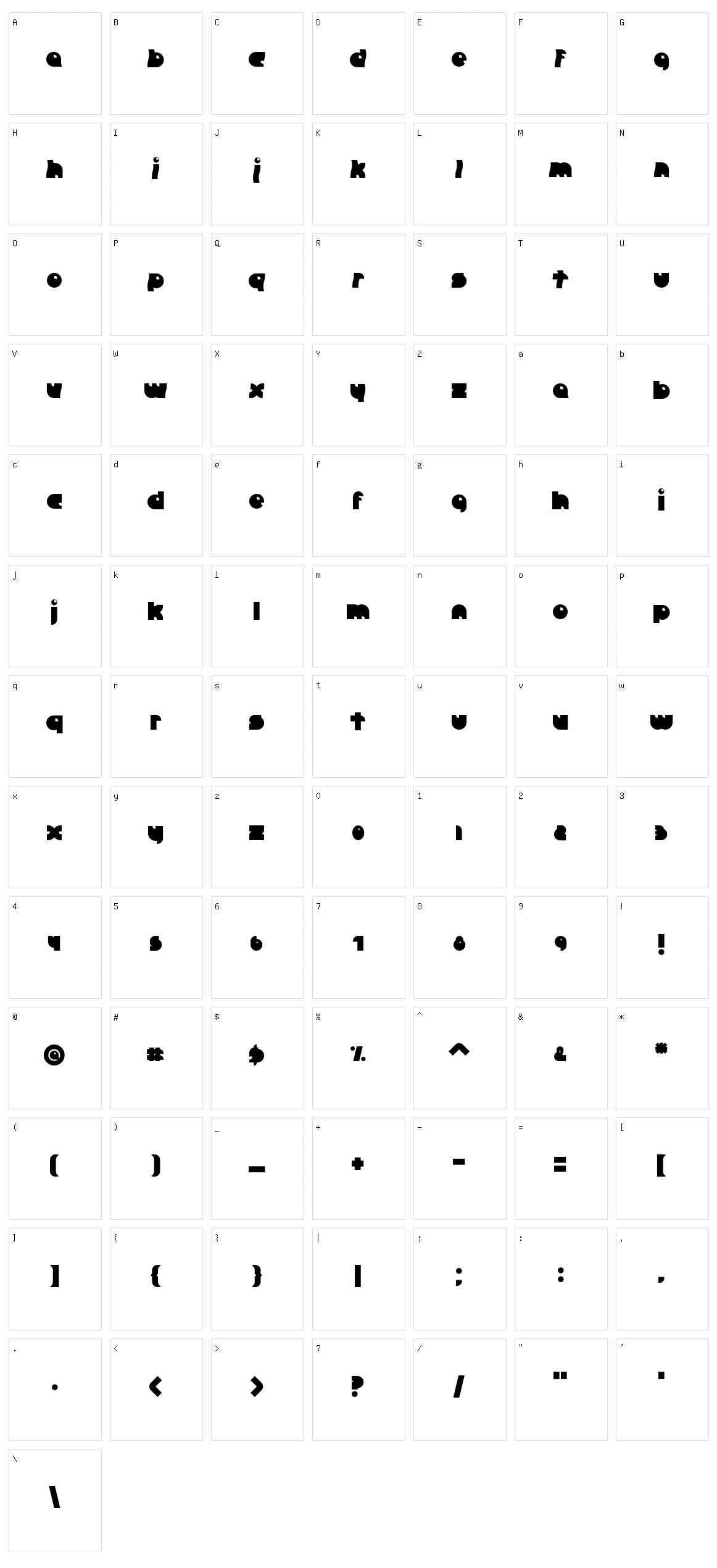
The free font Crazy Diamond is carefully designed by Cecilia RodrÃguez, showcasing a thoughtful balance of creativity and usability and falls under the Groovy font style. When you download the ZIP file, it contains only 9.05 KB of font files, making it lightweight and quick to download. Please review the license details below to understand permitted usage and distribution rights. If license information is not available, we recommend using this font for personal projects only or contacting the author directly for commercial usage permissions.